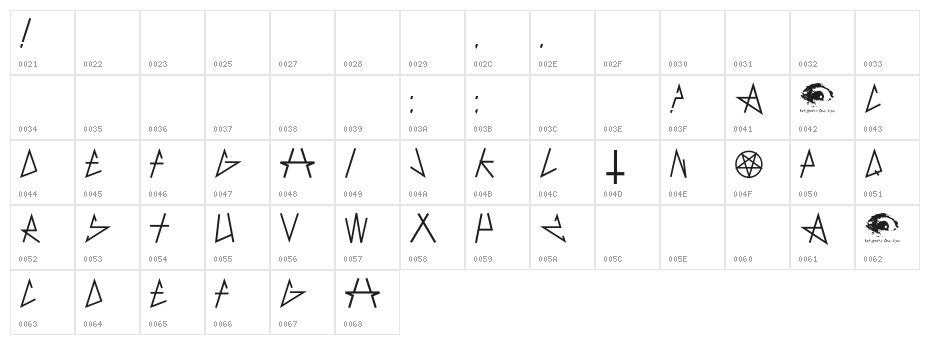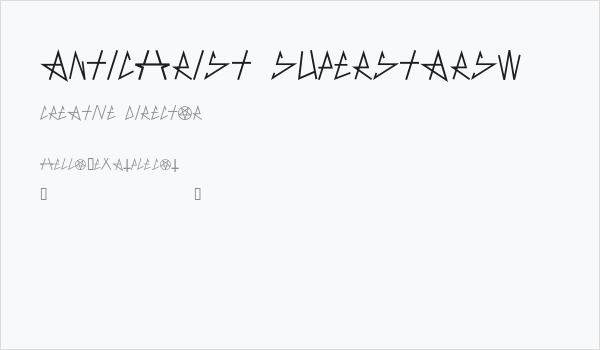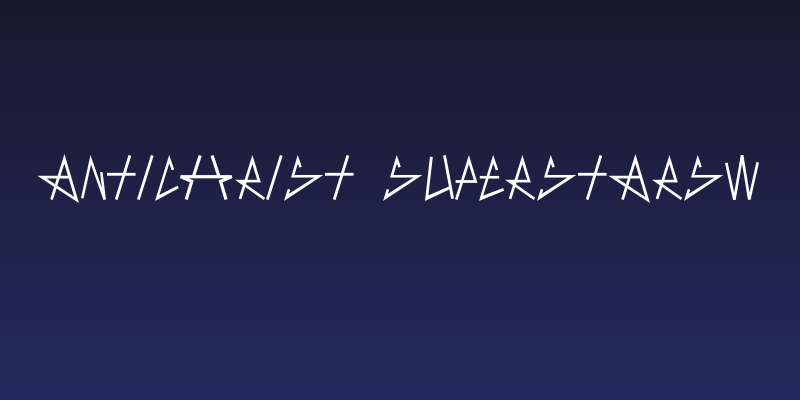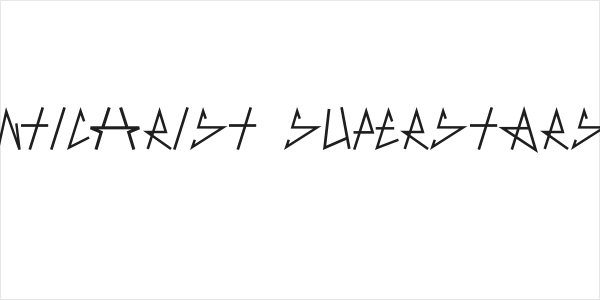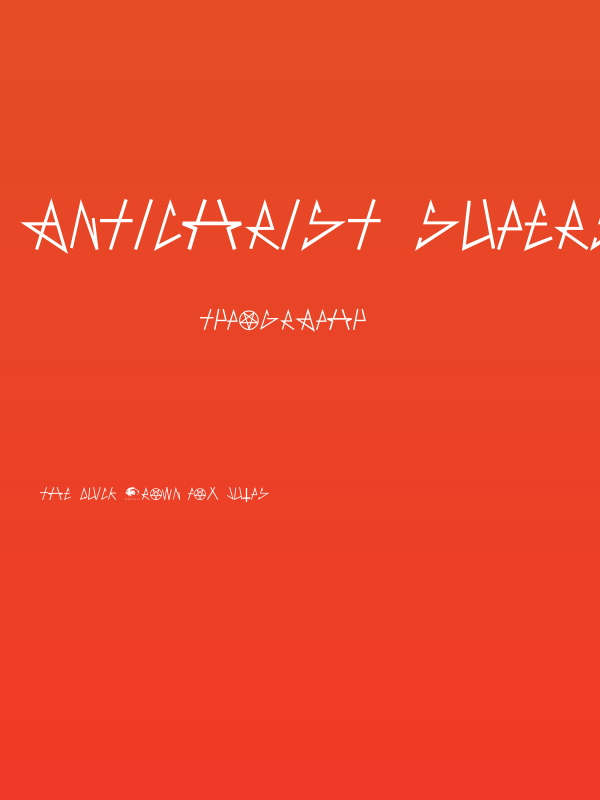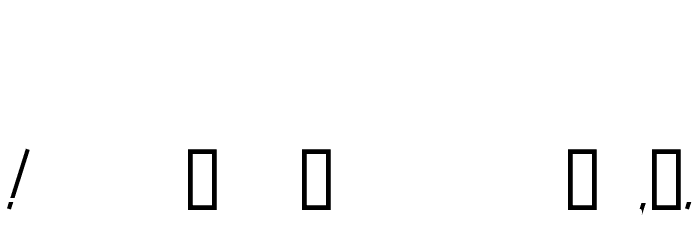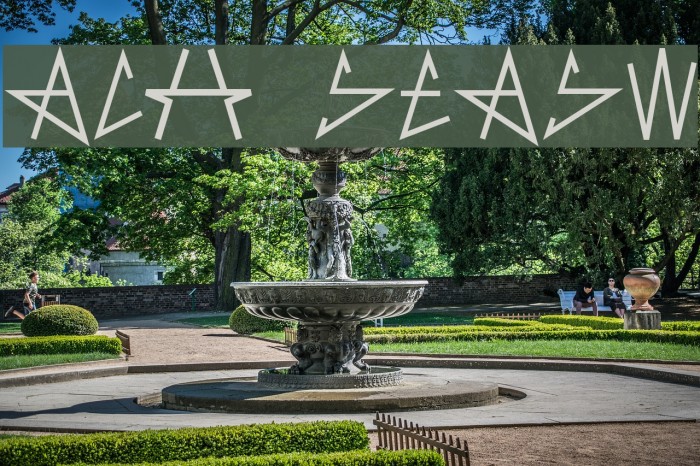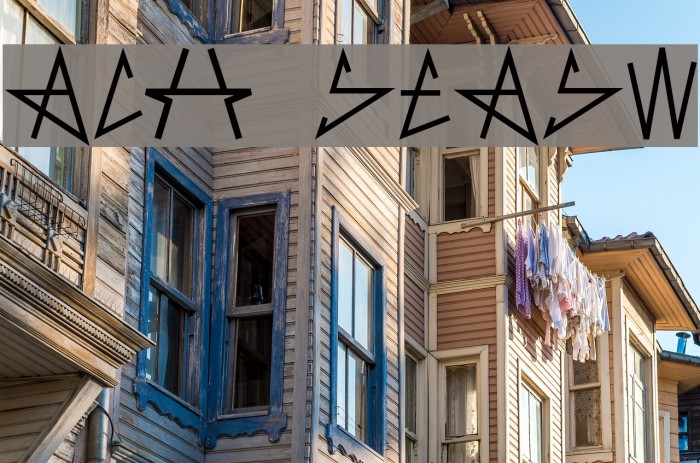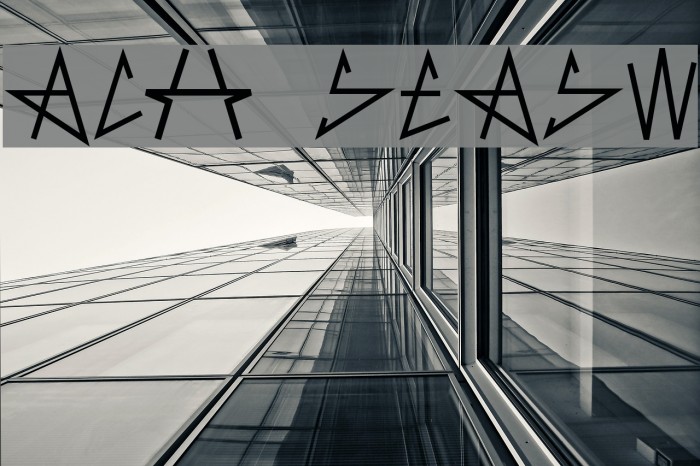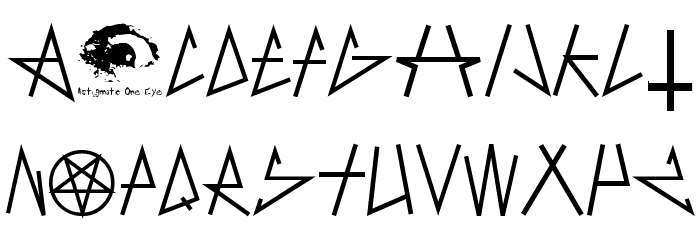
AntiChrist SuperstarSW Font
AntiChrist SuperstarSW Description
This font features a highly stylized, angular design with sharp edges and a distinctively gothic aesthetic. The characters are reminiscent of ancient runes, giving them a mystical and esoteric feel. The uppercase letters are particularly striking, with unique geometric shapes that create a sense of mystery and intrigue. The font includes a variety of special symbols, such as a pentagram and a cross, which enhance its dark and enigmatic theme. The overall appearance is bold and eye-catching, making it suitable for projects that require a dramatic and unconventional look.
| Overall Style | Gothic, Mystical, Esoteric |
| Use Case | Logos, Posters, Album Covers |
| Proposed Projects | Ideal for album covers, horror movie posters, gothic-themed events, or any project needing a dark, mysterious vibe. |